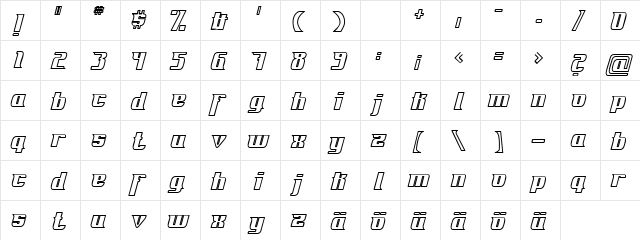
Fontovision IV outline
Fontovision IV is built around its visual character rather than neutral utility — its distinctive forms are designed to make an impression at display sizes.
Font Pairing: Pair with a clean neutral sans-serif for body copy to let Fontovision IV's character lead without overwhelming the composition.
Pro Tip: Treat Fontovision IV as the centrepiece of your typographic hierarchy. One strong heading set in a decorative face can carry an entire layout.